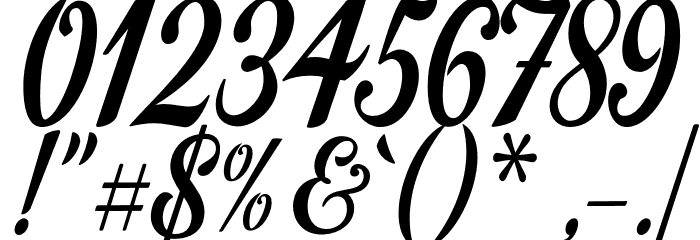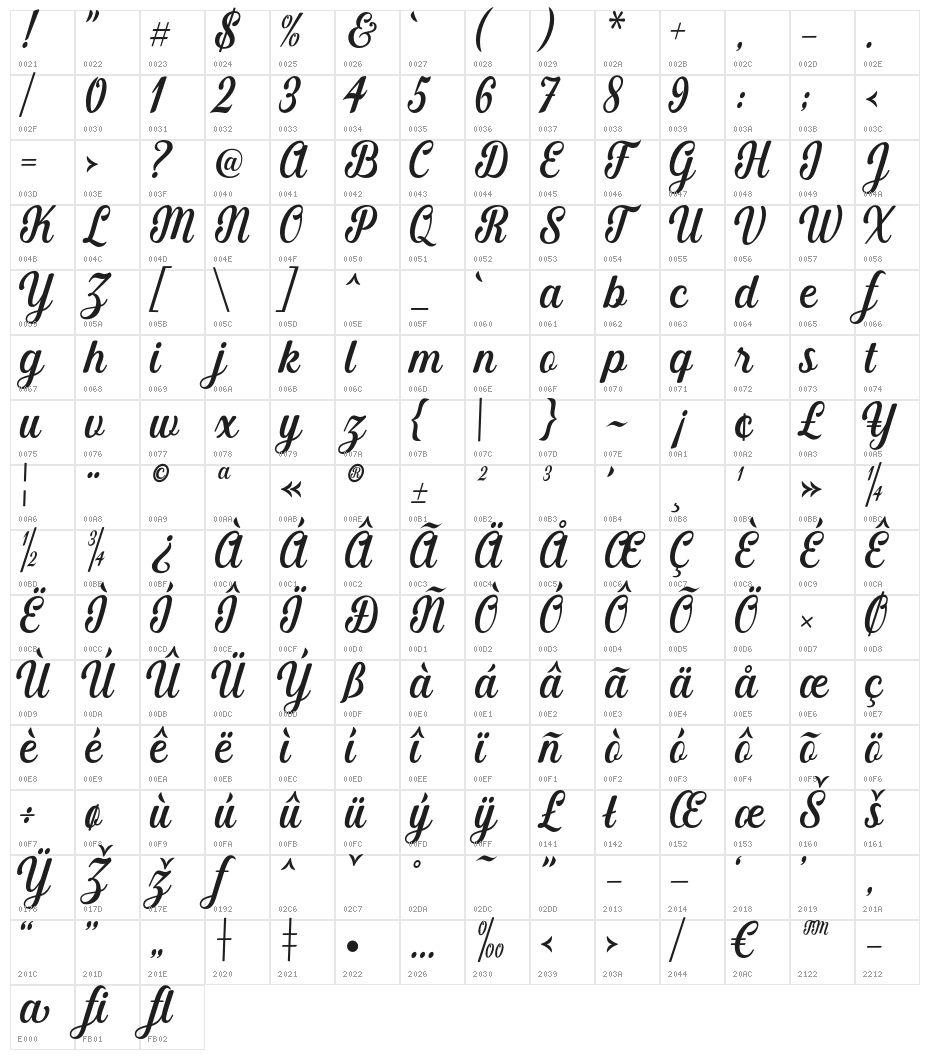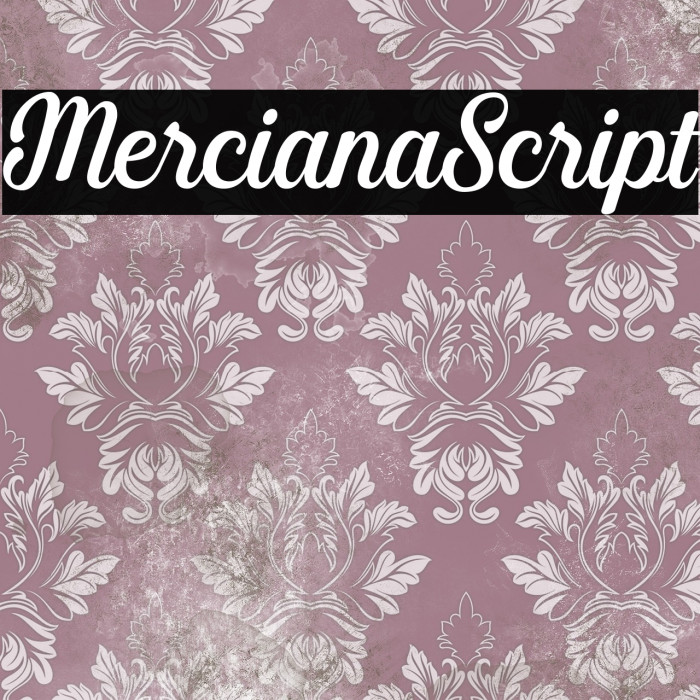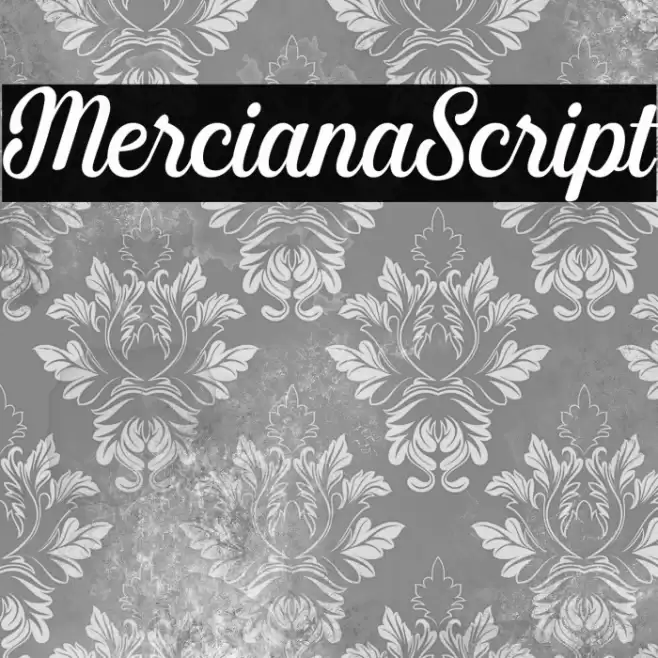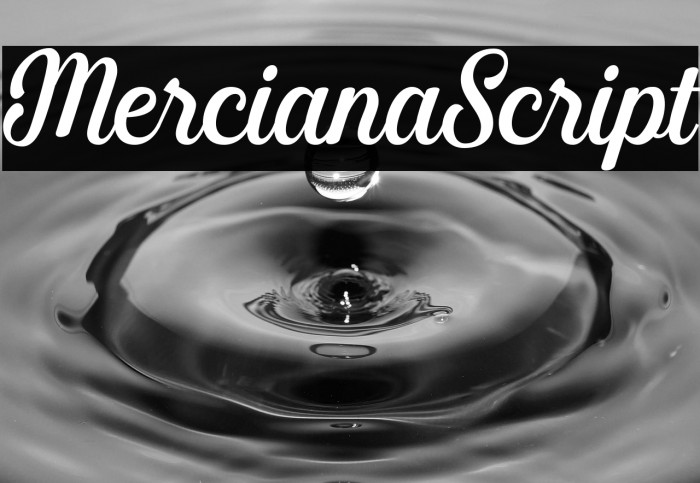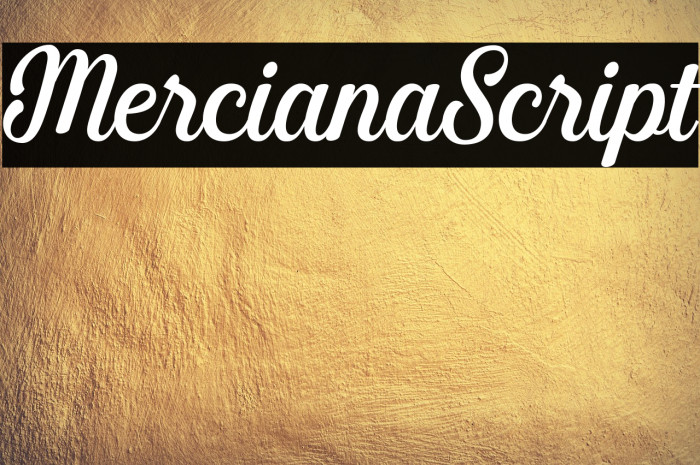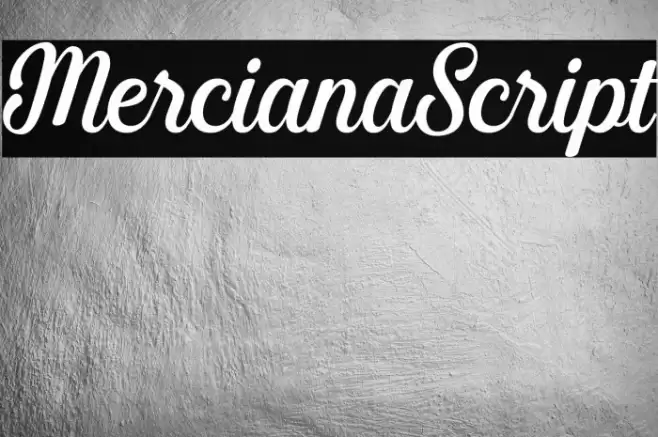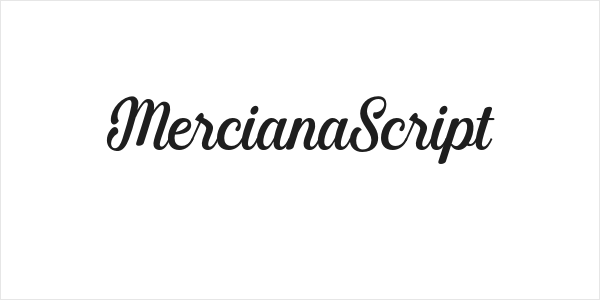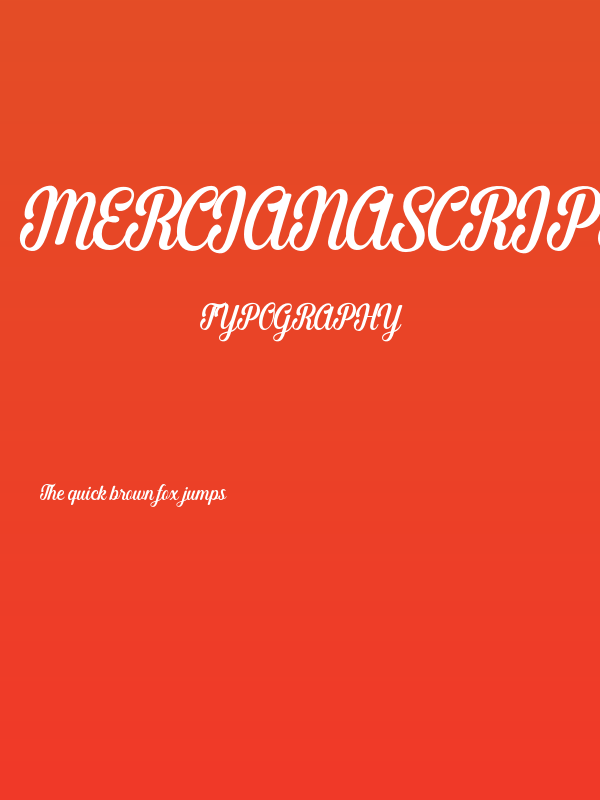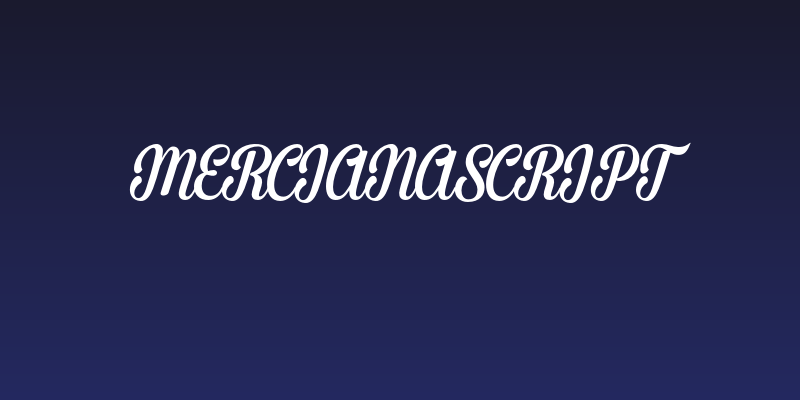
MercianaScript Font
MercianaScript Description
This elegant script font features flowing, interconnected characters that exude a sense of sophistication and grace. The uppercase letters are bold and sweeping, with intricate curves and flourishes that add a touch of drama. The lowercase letters maintain a consistent flow, enhancing readability while preserving the decorative style. Numbers and special characters are designed with the same attention to detail, ensuring a cohesive look across all text. The font's high contrast between thick and thin strokes adds to its visual appeal, making it suitable for a variety of creative applications.
| Proposed Projects | Ideal for wedding invitations, elegant branding, greeting cards, and luxury product packaging. |